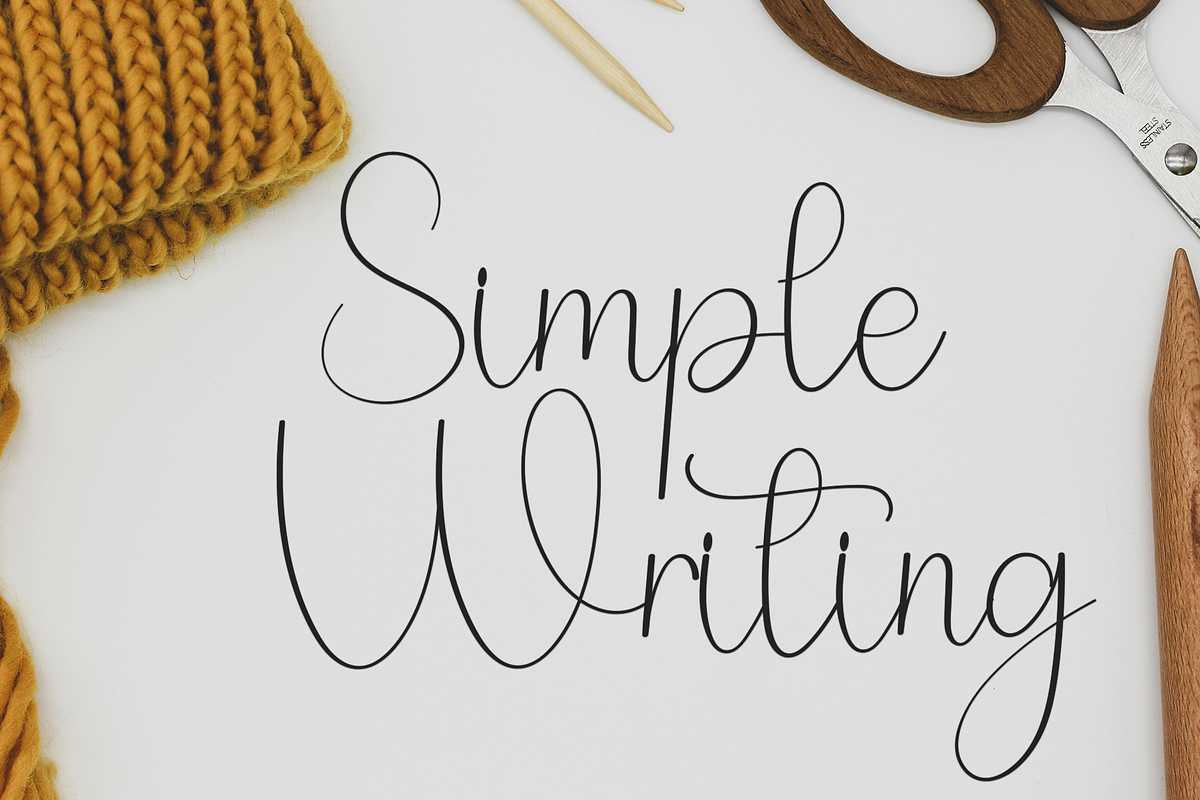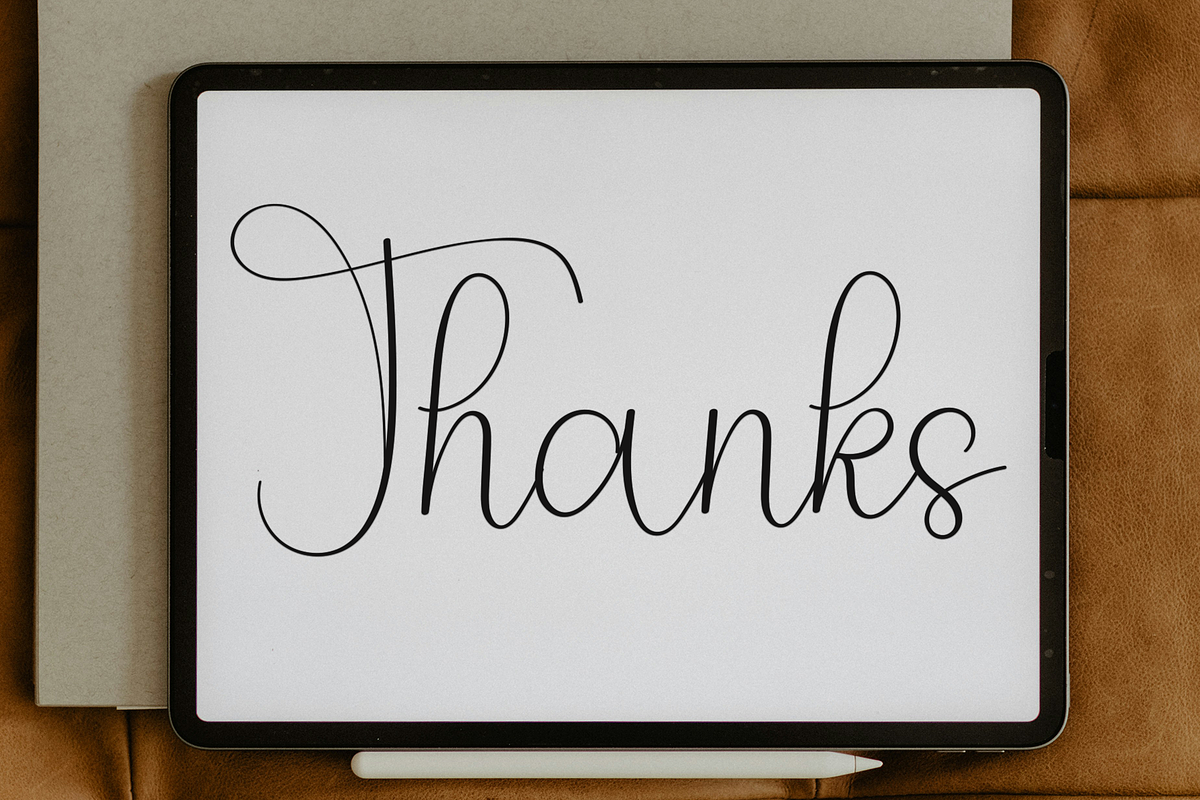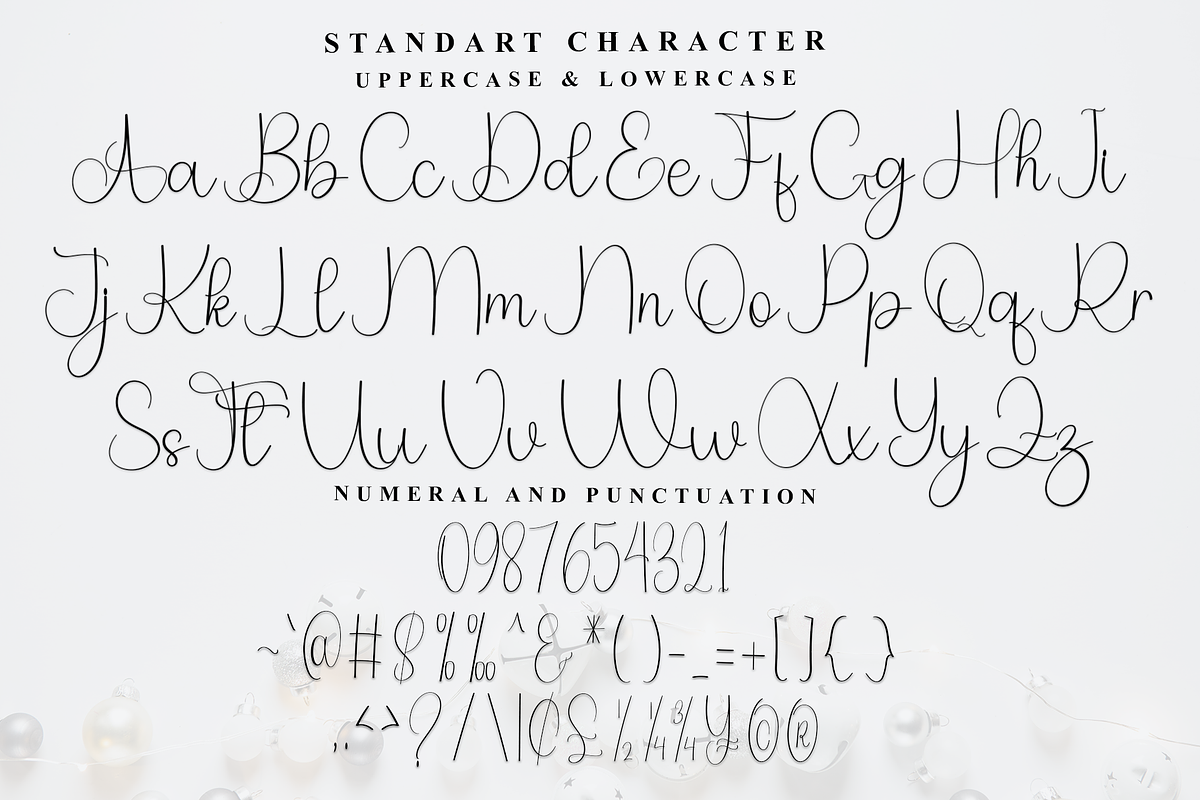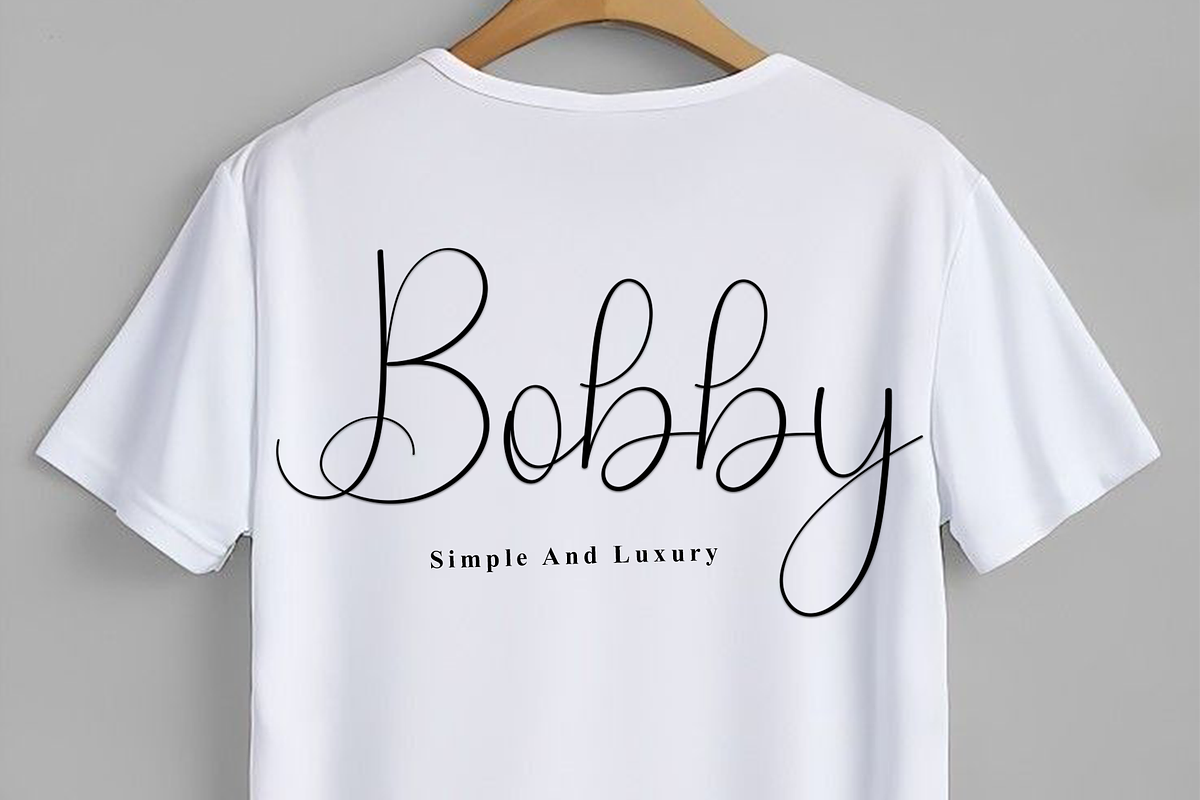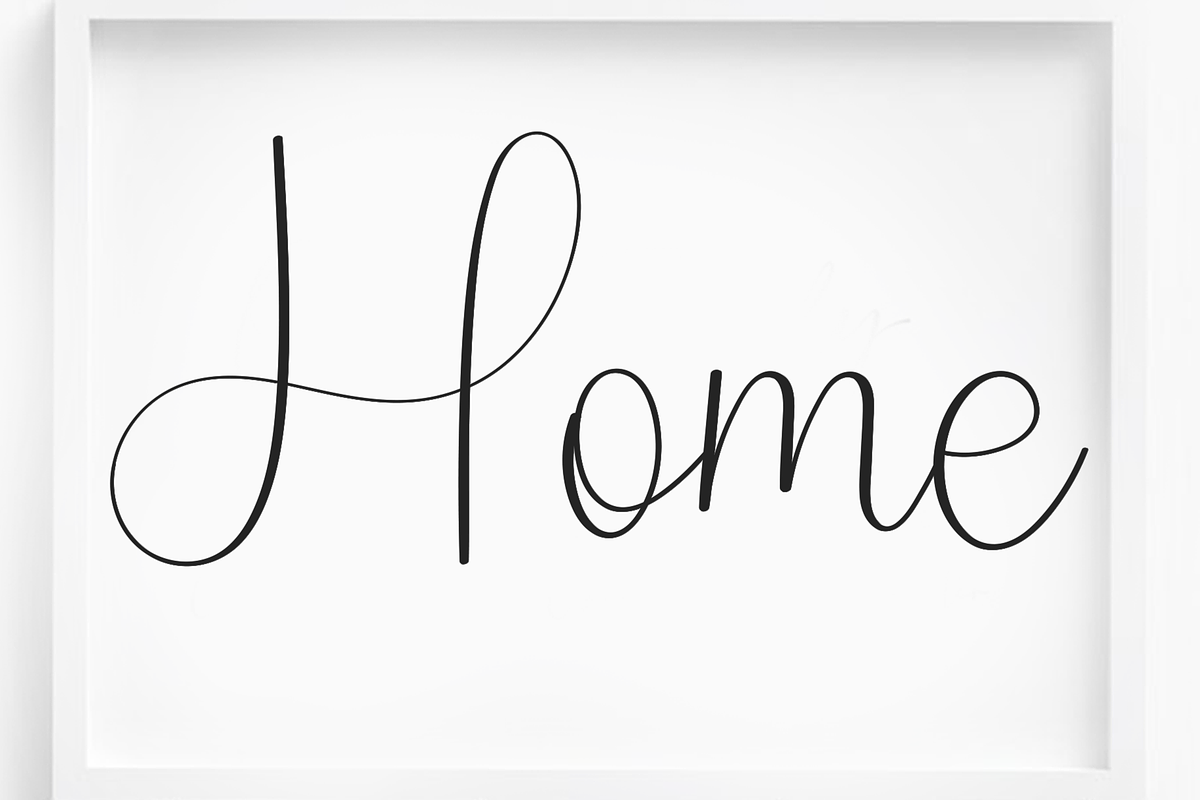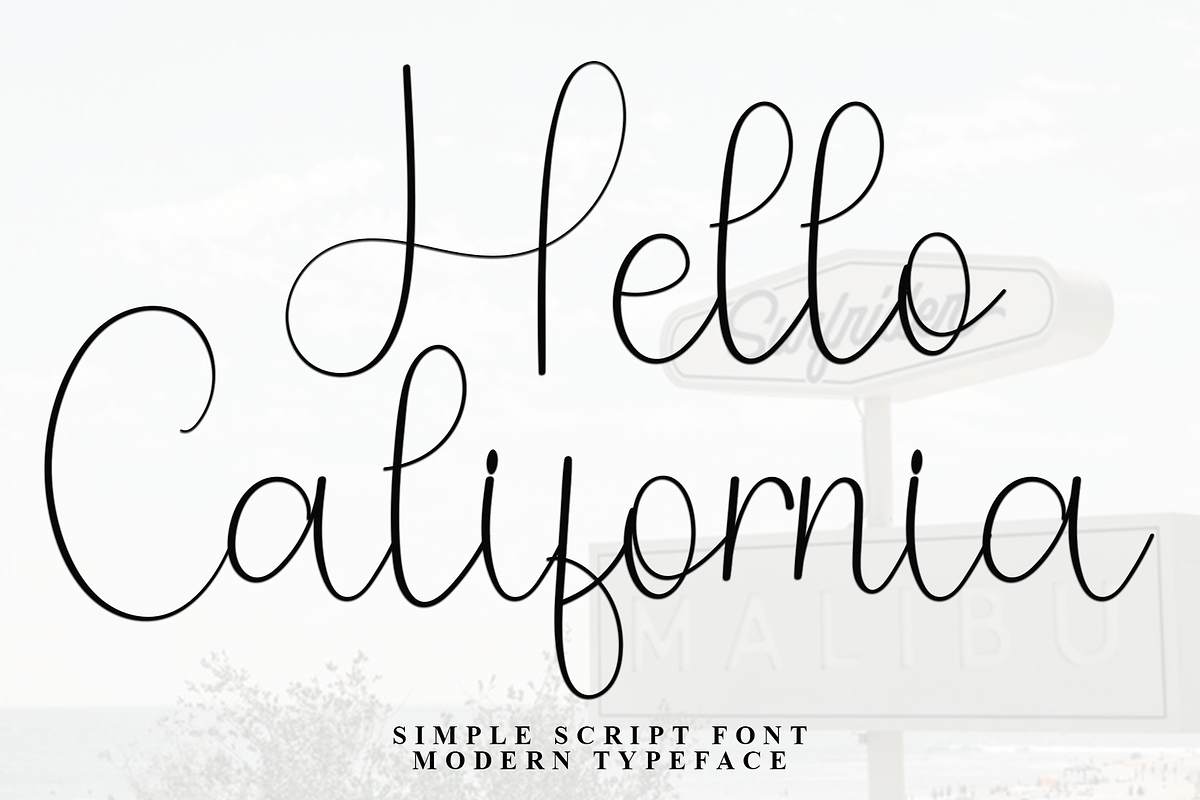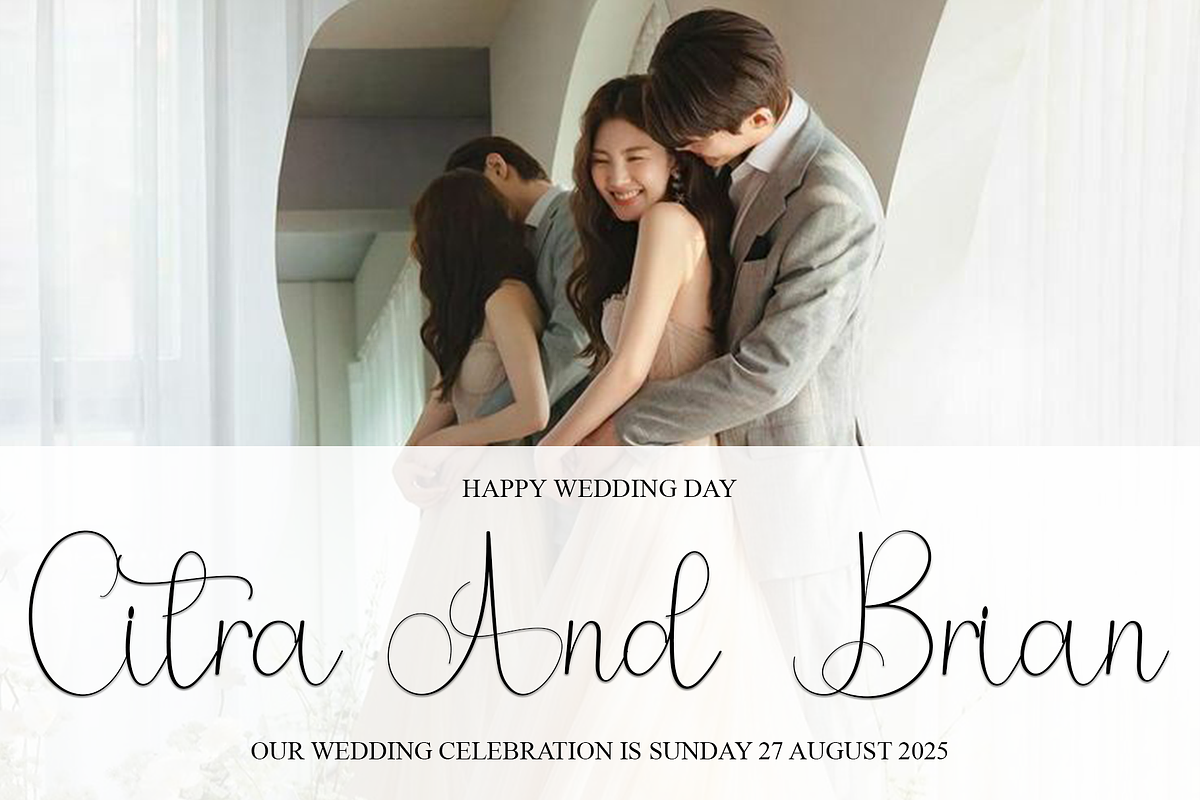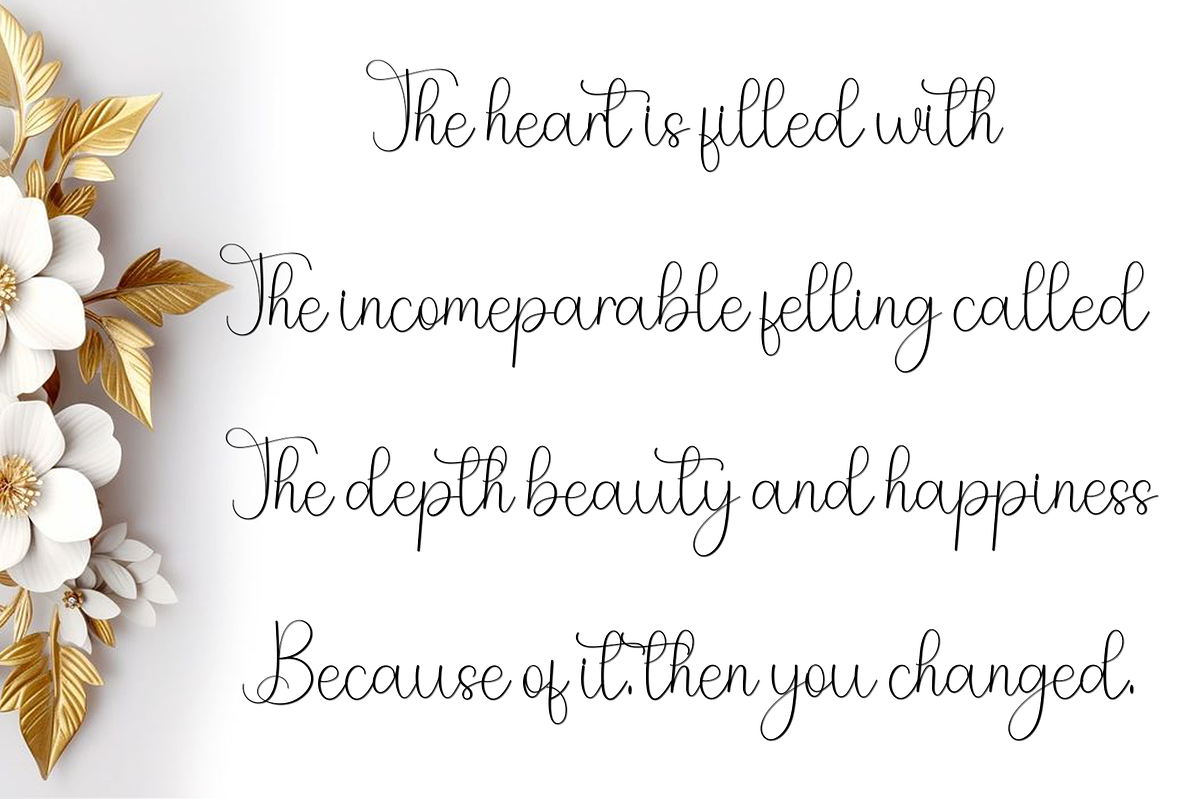
Hello California
Hello California is a beautiful and eye-catching font designed with a soft, unique touch. Its distinctive strokes give it a special character, making it meaningful and versatile for future use. With various characters, it’s perfect for design projects, crafts, and other creative works.